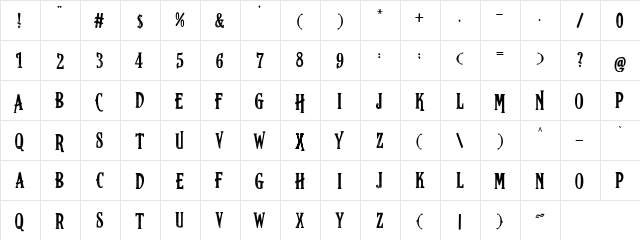
Germinabunt Regular Rough DEMO Regular
| Foundry | Aprialdhi Adhiwarna Sugih |
| Designer | Aprialdhi Adhiwarna Sugih |
Design Context for Germinabunt Regular Rough DEMO Typeface
Germinabunt Regular Rough DEMO embraces imperfection — its rough, textured character adds raw authenticity to designs that want to feel lived-in and unconventional.
A strong fit for alternative music projects, graffiti-adjacent design, and anything that deliberately resists polish.
Pro Tip: Use Germinabunt Regular Rough DEMO at larger sizes where the texture and irregularity of each letterform can be clearly seen — it loses its character at small sizes.